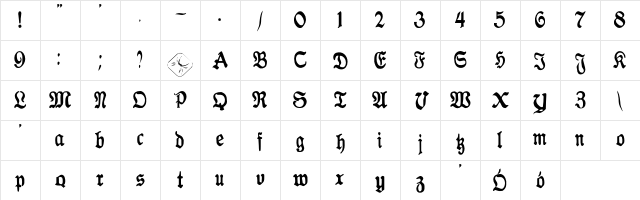
Antraxja  Goth 1938 Regular
Foundry: atrax
Designer: atrax
Design Context for Antraxja Goth 1938
Antraxja Goth 1938 is a composed and adaptable typeface that performs quietly and consistently across a wide range of design contexts.
Who designed the Antraxja Goth 1938 Regular font?